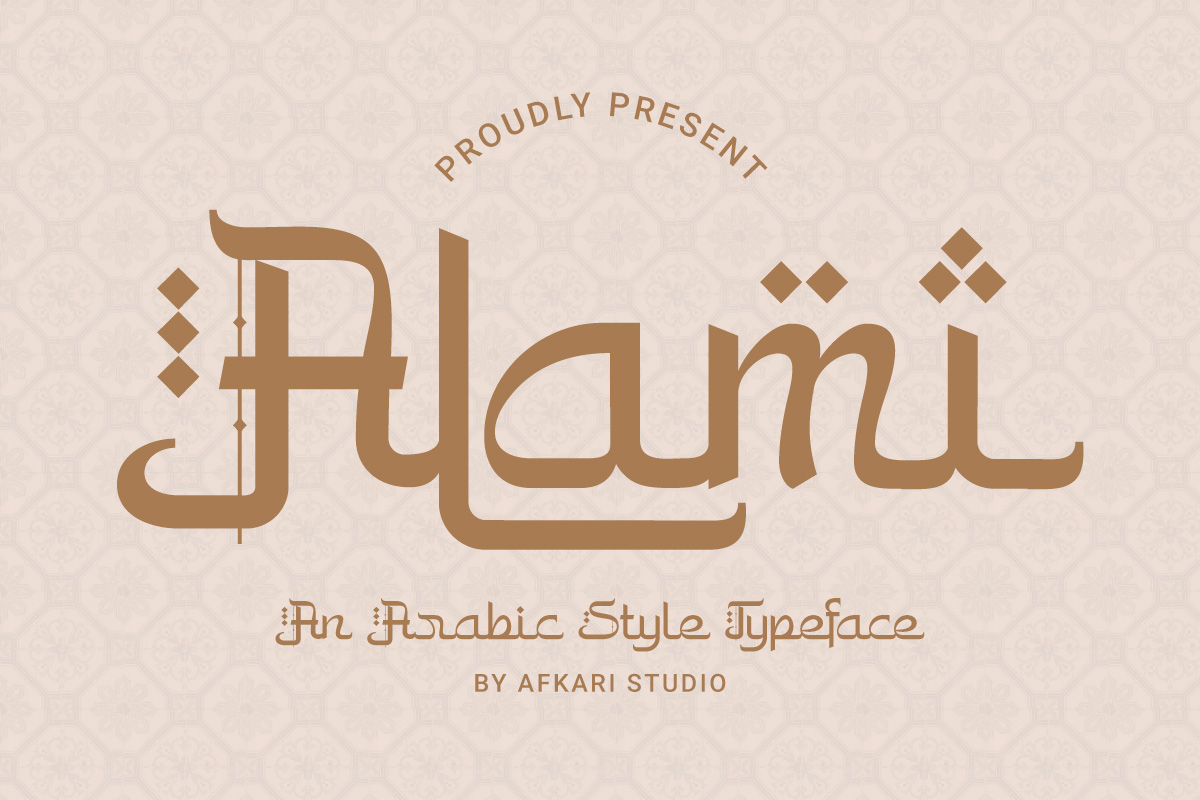
Alami - An Arabic Style Typeface Font
Designed by Afkari Studio
About Alami - An Arabic Style Typeface
Alami is a modern Arabic script typography that beautifully blends the classic charm of Arabic calligraphy with a sleek, contemporary touch. Designed for versatility and visual impact, this Arabic font style is perfect for designers seeking cultural depth with modern flair.
Alami - An Arabic Style Typeface